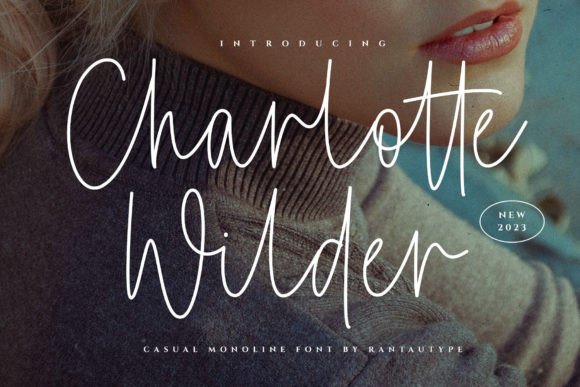
Are you ready to elevate your design game? Introducing Charlotte Wilder Font, the ultimate script font that will add a touch of elegance and style to any creative project. Created by RantauType, this font is the perfect choice for those looking to make a statement with their designs.
With its stylish and soft curves, Charlotte Wilder Font strikes the perfect balance between professionalism and casualness. Its modern and minimalist look will captivate your audience and leave a lasting impression. Whether you're designing a logo, title, or watermark on photography, this font will take your work to a whole new level.
But that's not all! Charlotte Wilder Font is not just visually stunning, it's also incredibly readable. Say goodbye to those hard-to-decipher fonts that leave your audience squinting. With Charlotte Wilder Font, your message will be clear and easy to grasp, ensuring that your designs effectively communicate your ideas.
Looking to add a touch of sophistication to your wedding invitations or album covers? Charlotte Wilder Font is the answer. Its elegance and charm will make your special day even more memorable. And for those in the business world, this font is perfect for branding, business cards, and magazine layouts. Stand out from the crowd and leave a lasting impression with Charlotte Wilder Font.